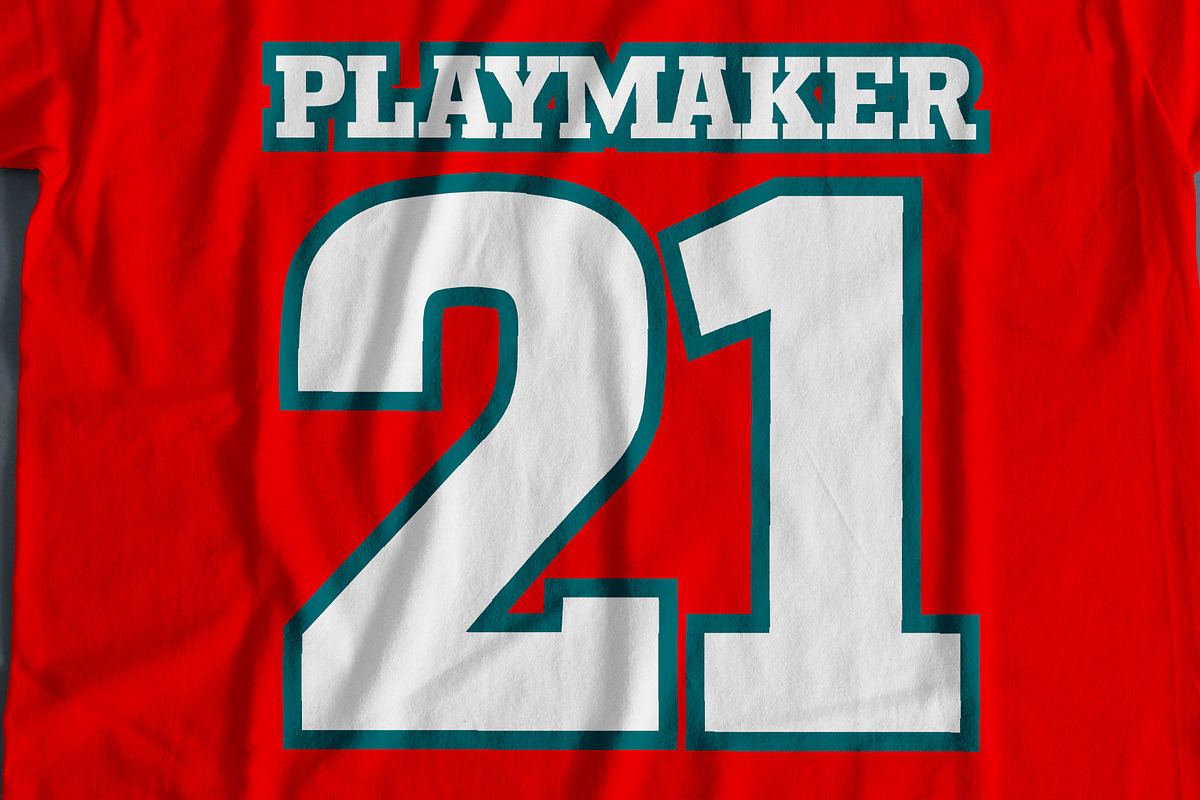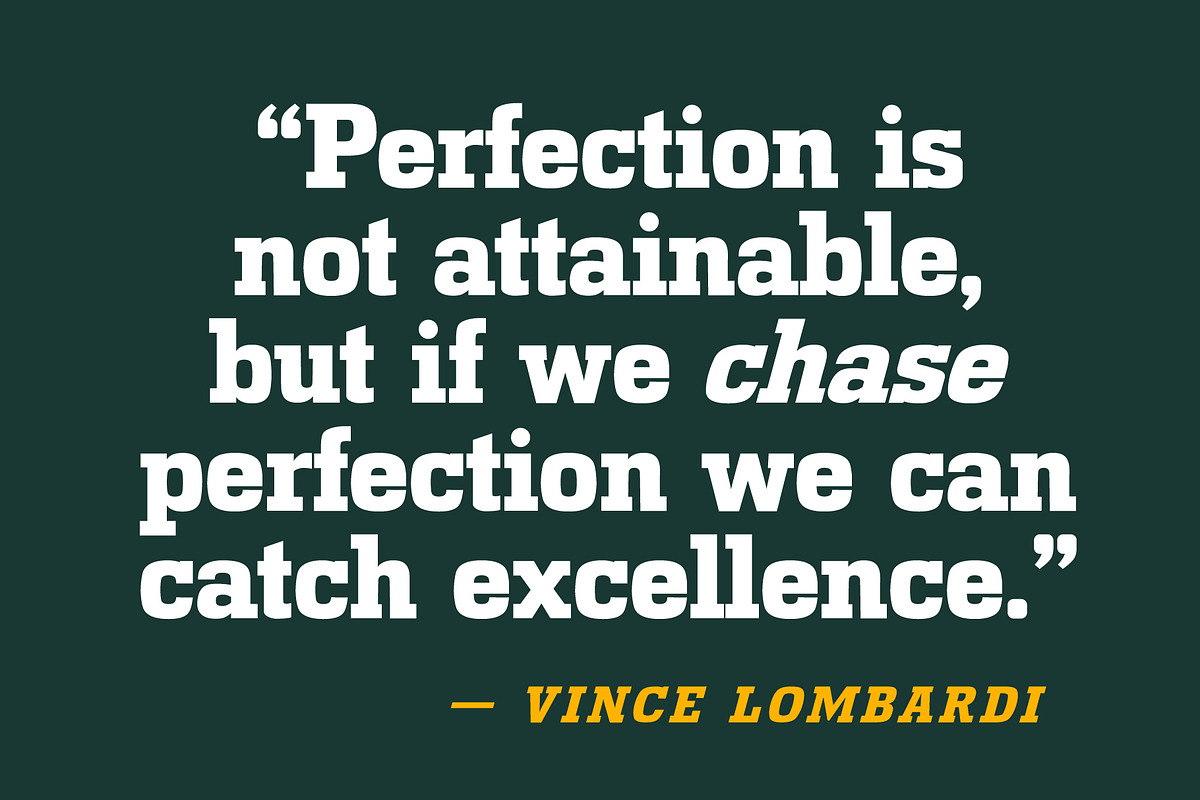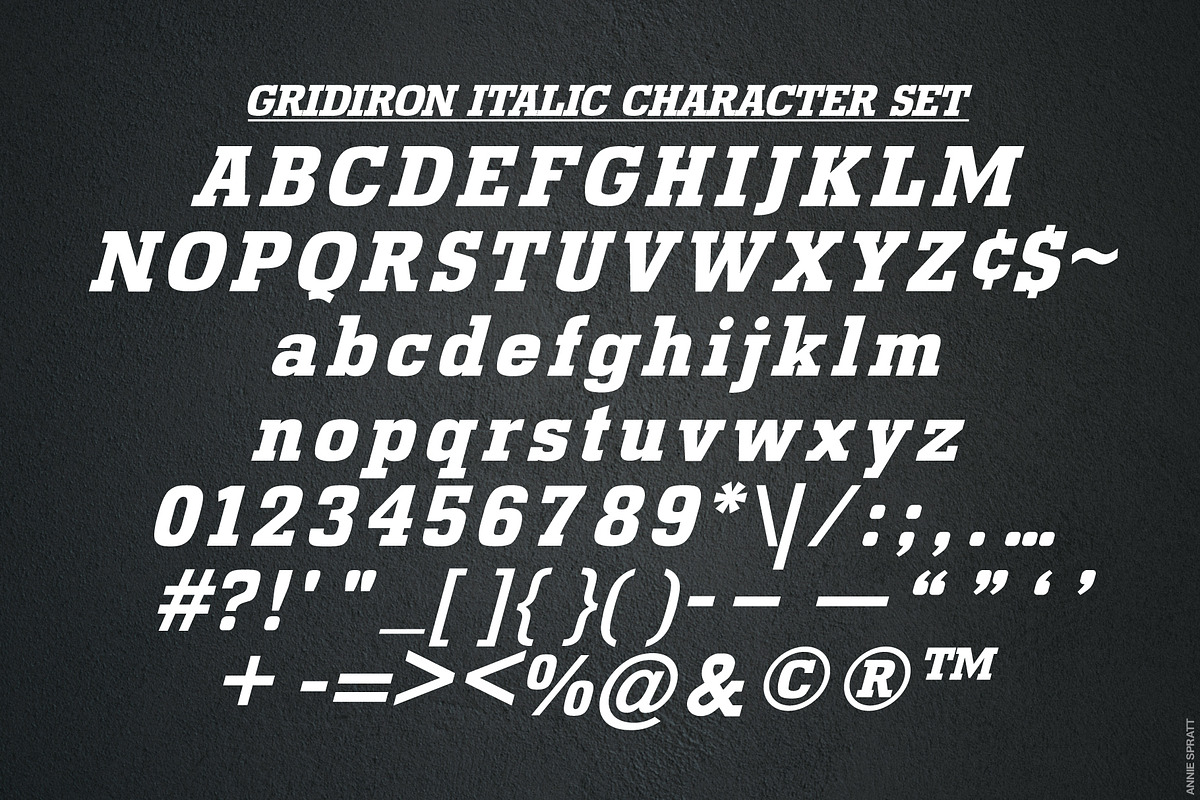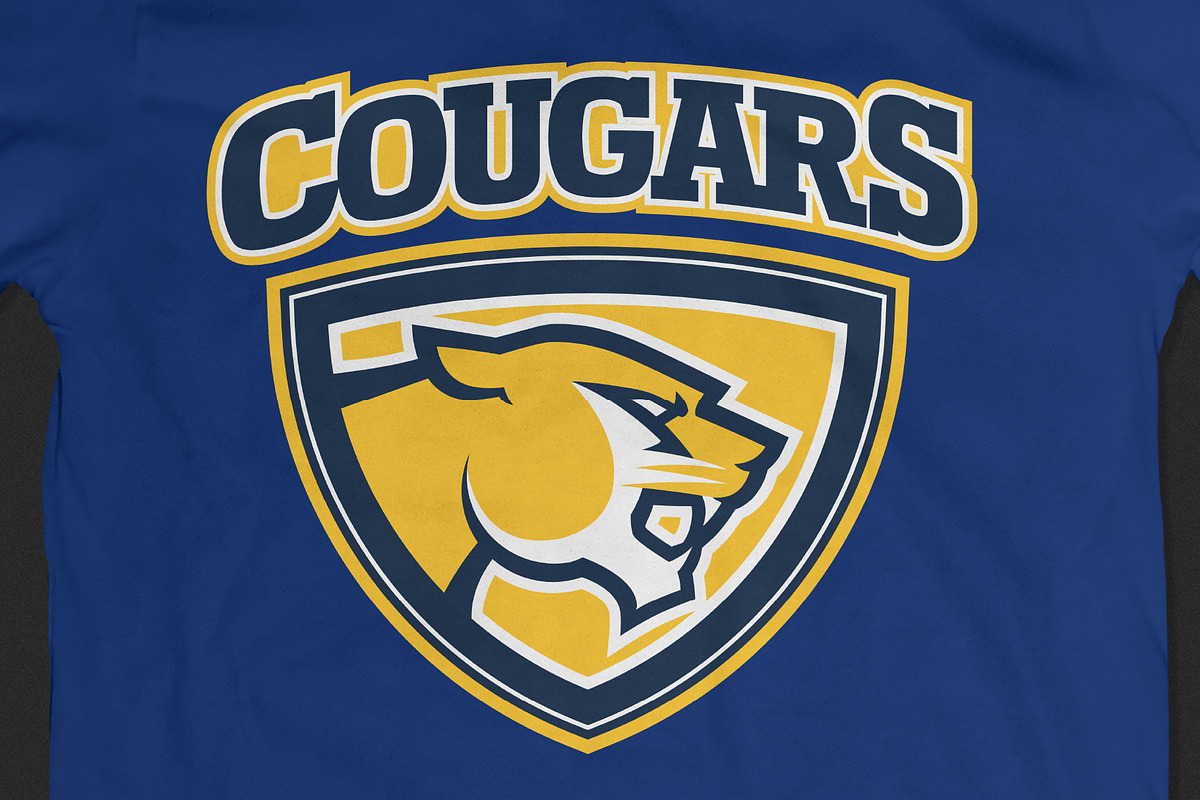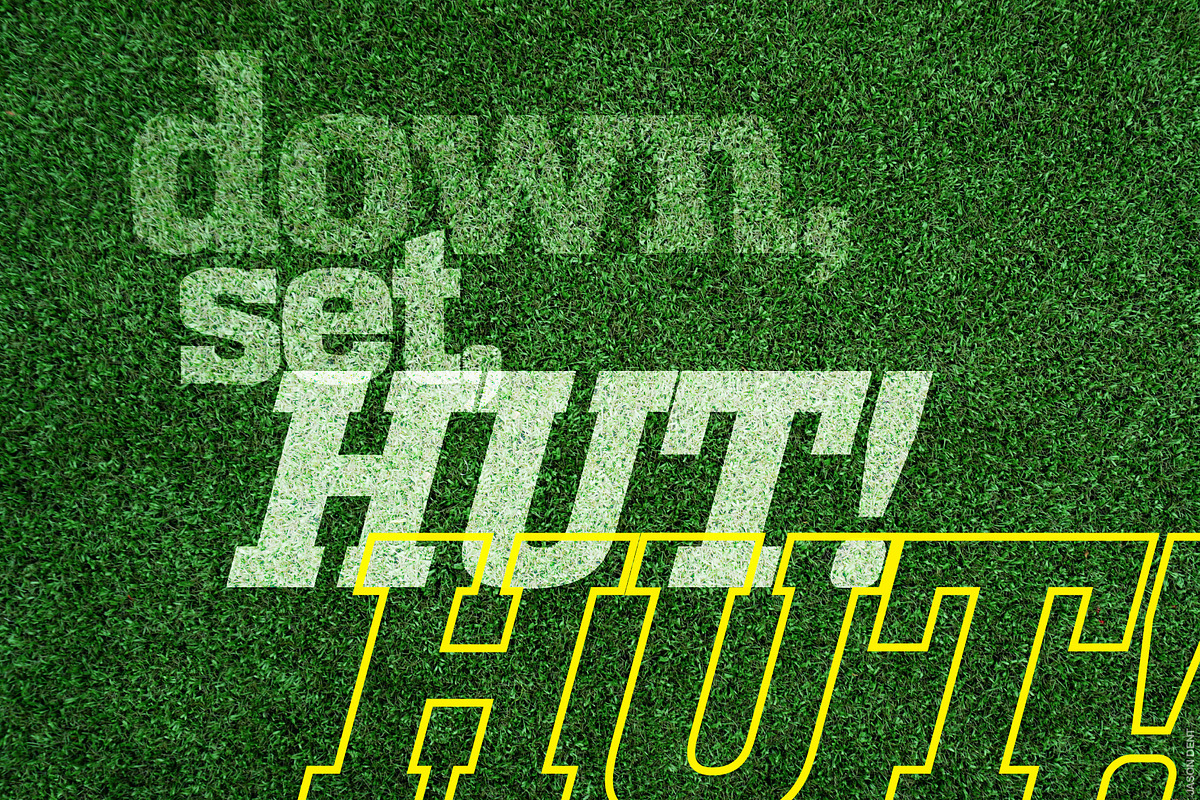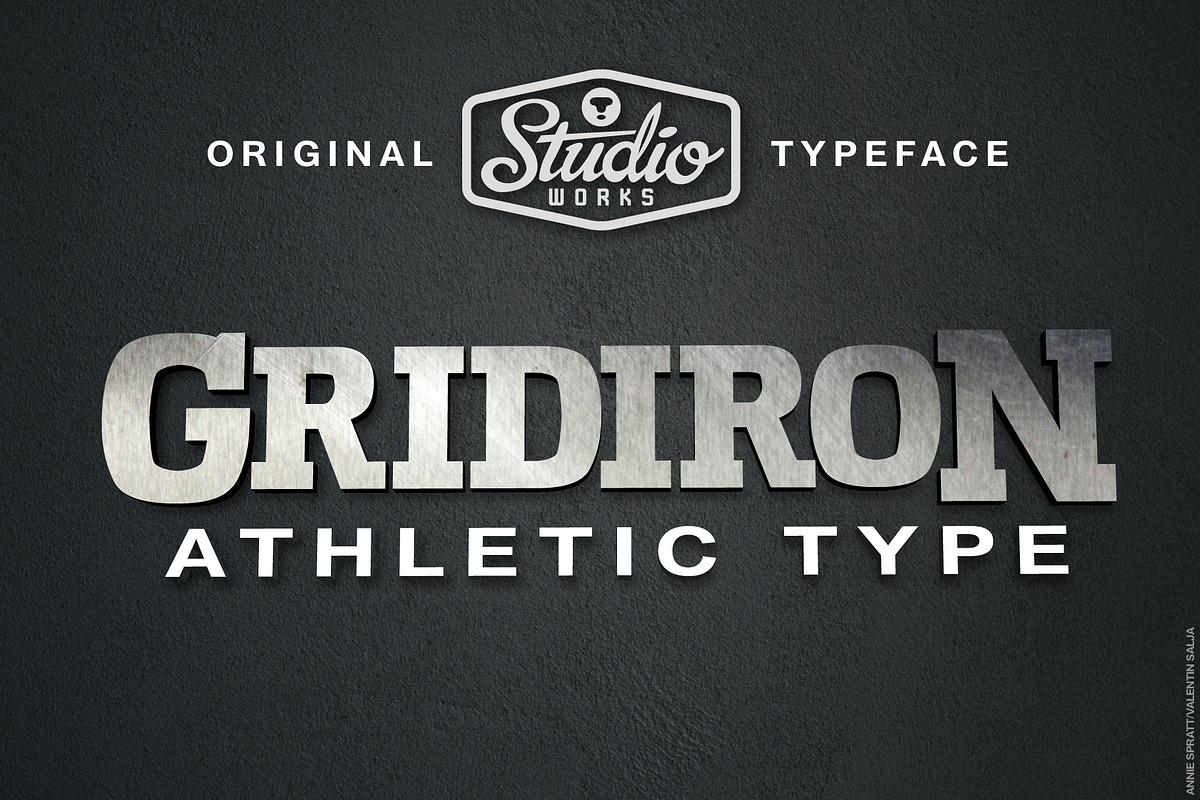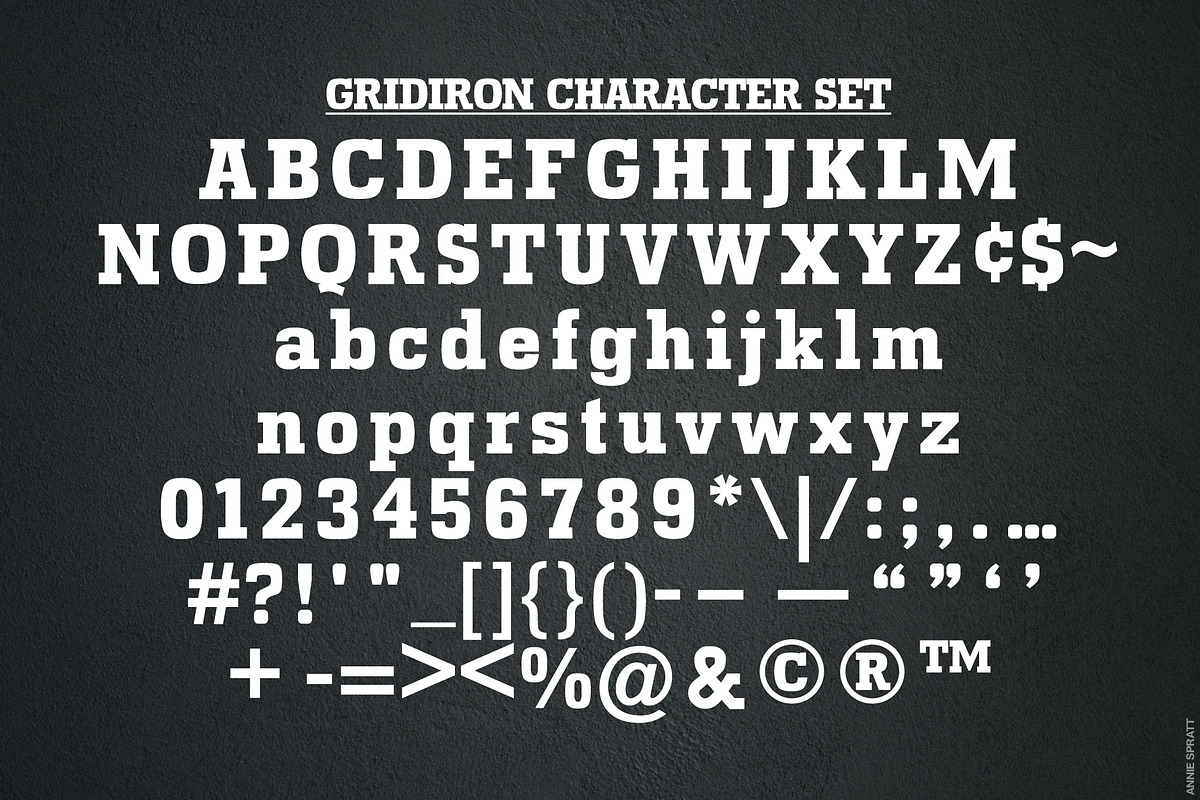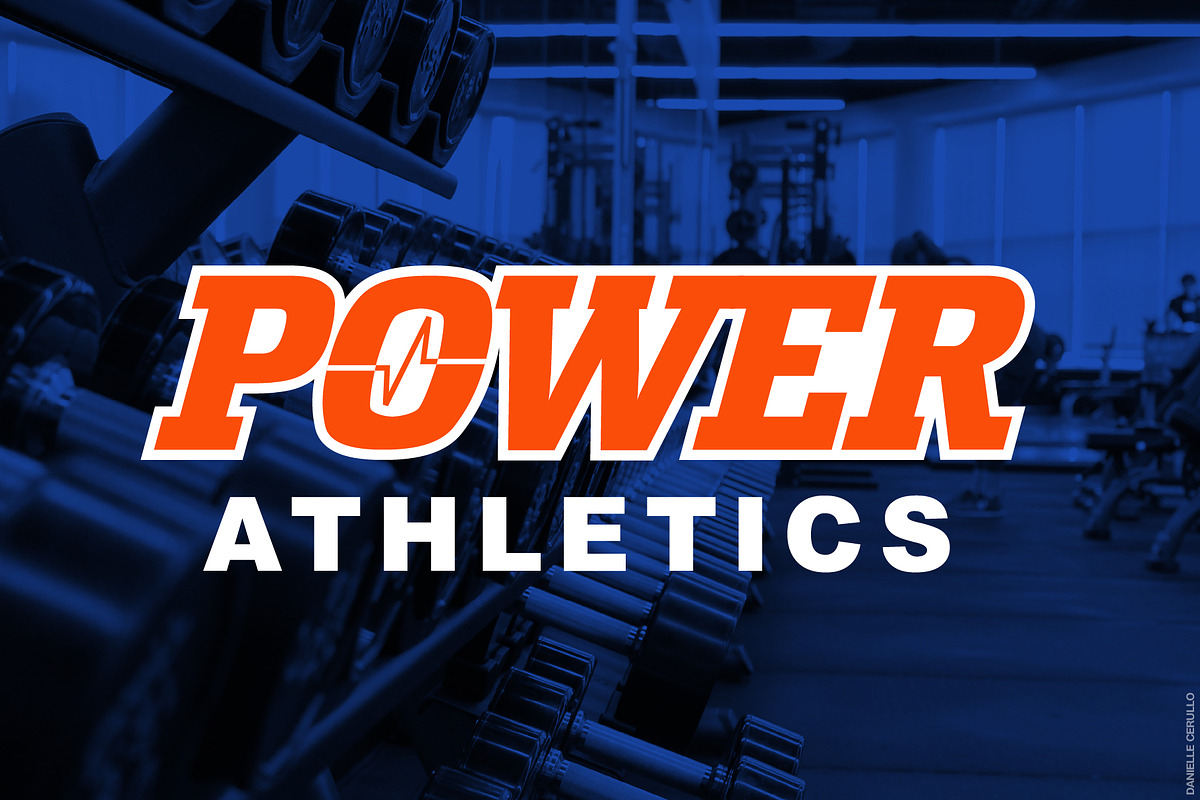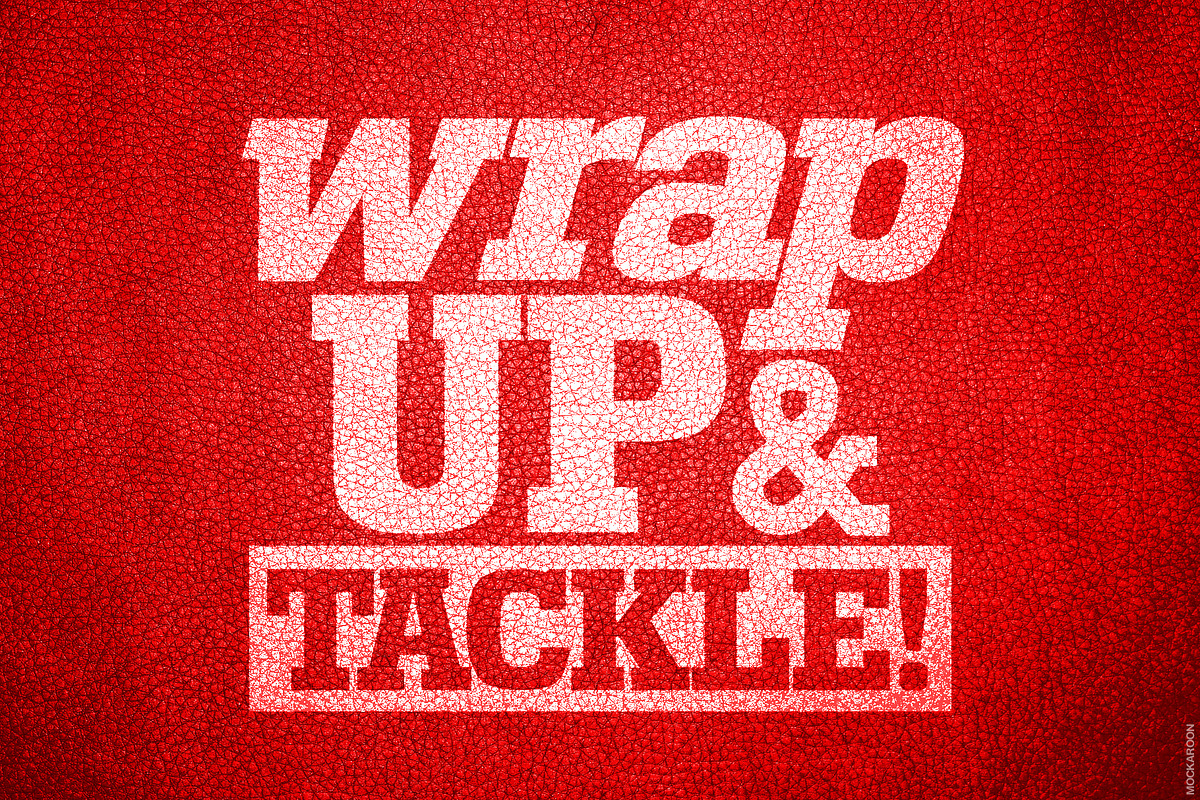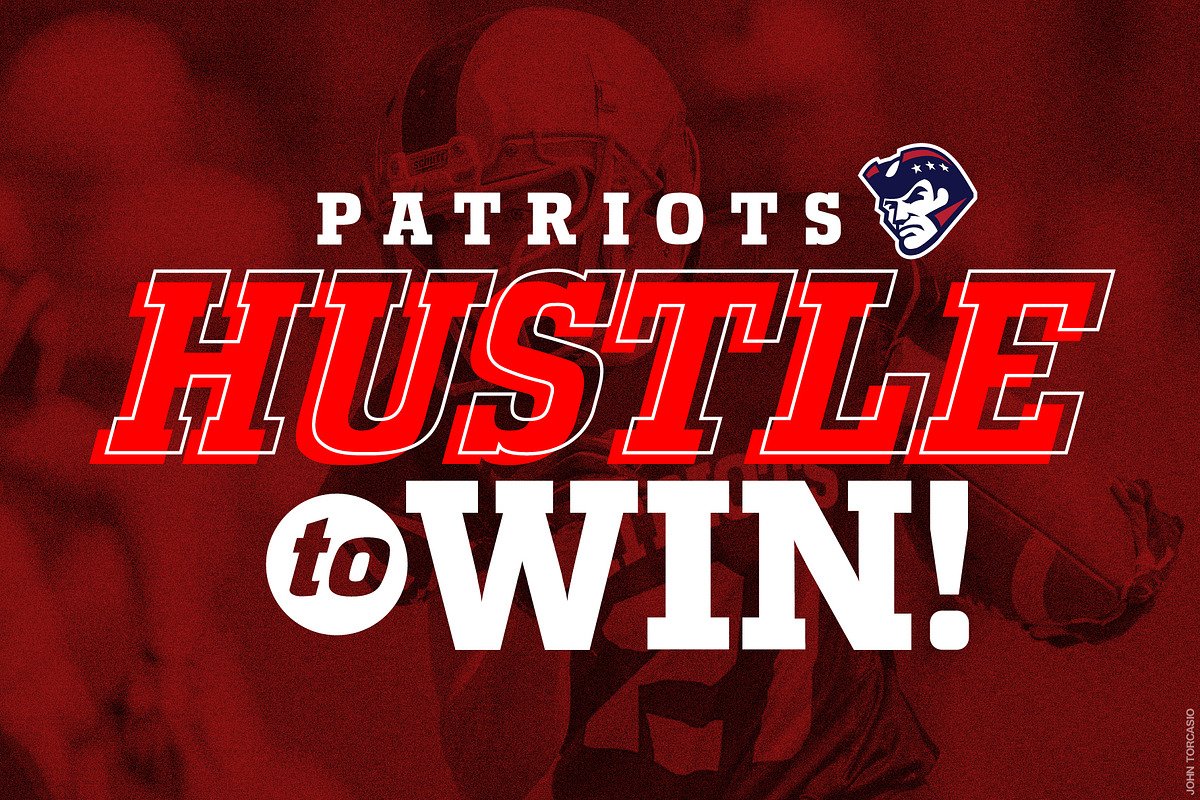
Gridiron | Athletic Display Type
StudioWorks presents •• G R I D I R O N •• — athletic display typeface.
Hustling to a starting position on the StudioWorks line is Gridiron — an all-star addition to the athletic display team. Unlike the stiff and bulky builds of seasoned sports slabs, Gridiron doesn't cut corners and instead packs power and agility onto a more rounded frame.
Gridiron is your go-to for sports-themed logos, posters and apparel and plays well with many classic sans serif types. Feeling that deadline blitz? Stop the rush with Gridiron Regular and sprint into the end zone with Gridiron Italic. Two typestyles come together in one special team.
Here's what's on the roster for Gridiron:
- Upper (A-Z) and lower case (a-z) characters
- Numbers (0-9)
- Standard punctuation and glyphs
- Regular and Italic Typestyles